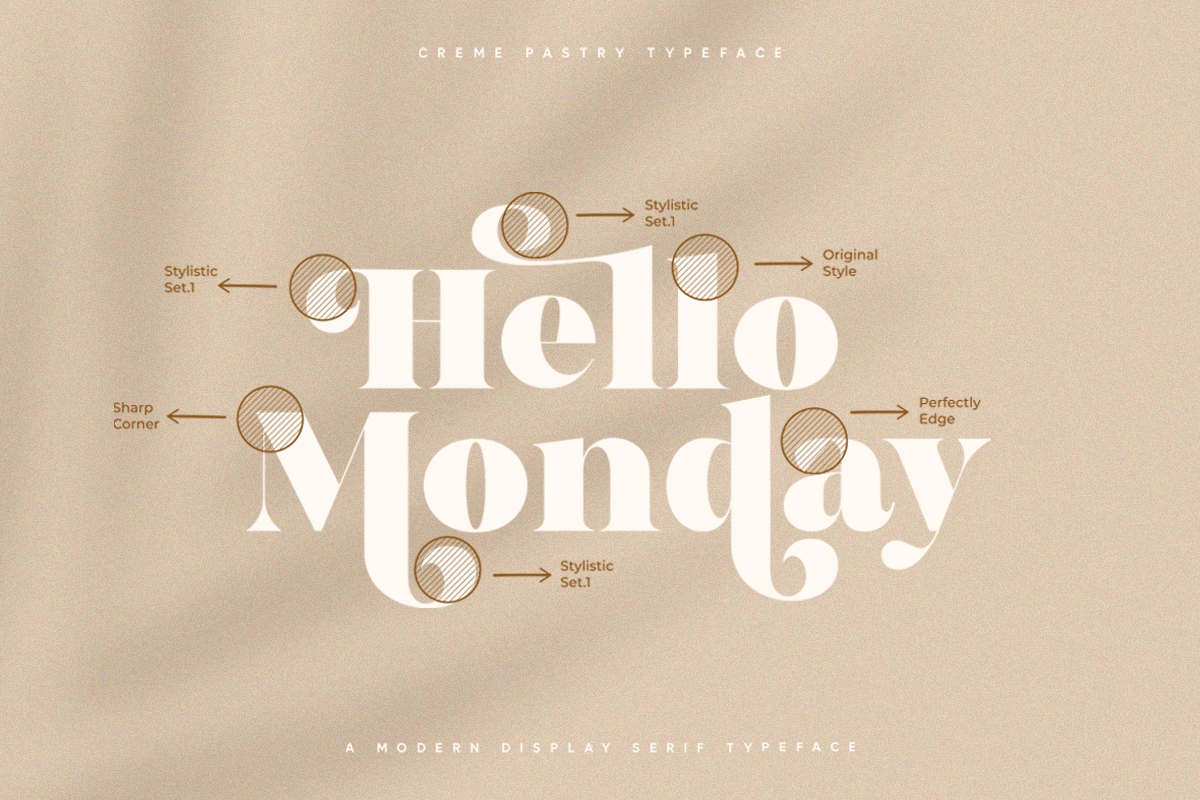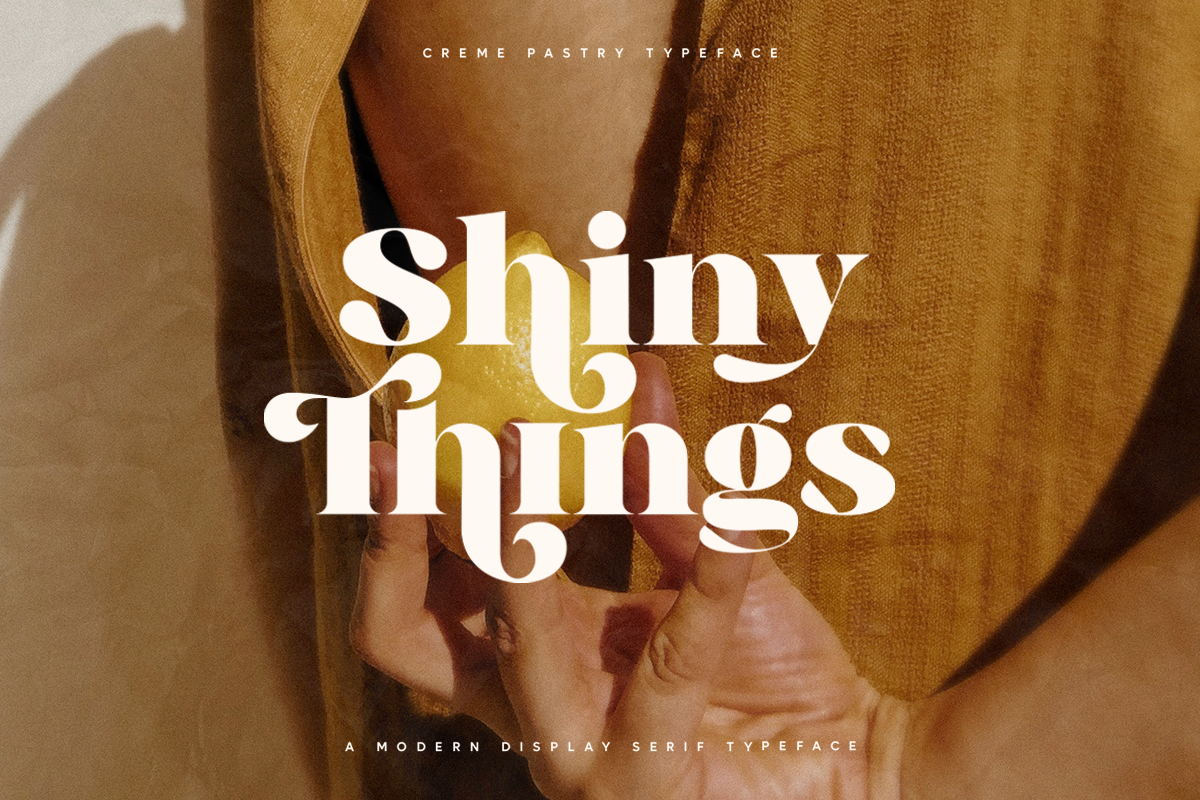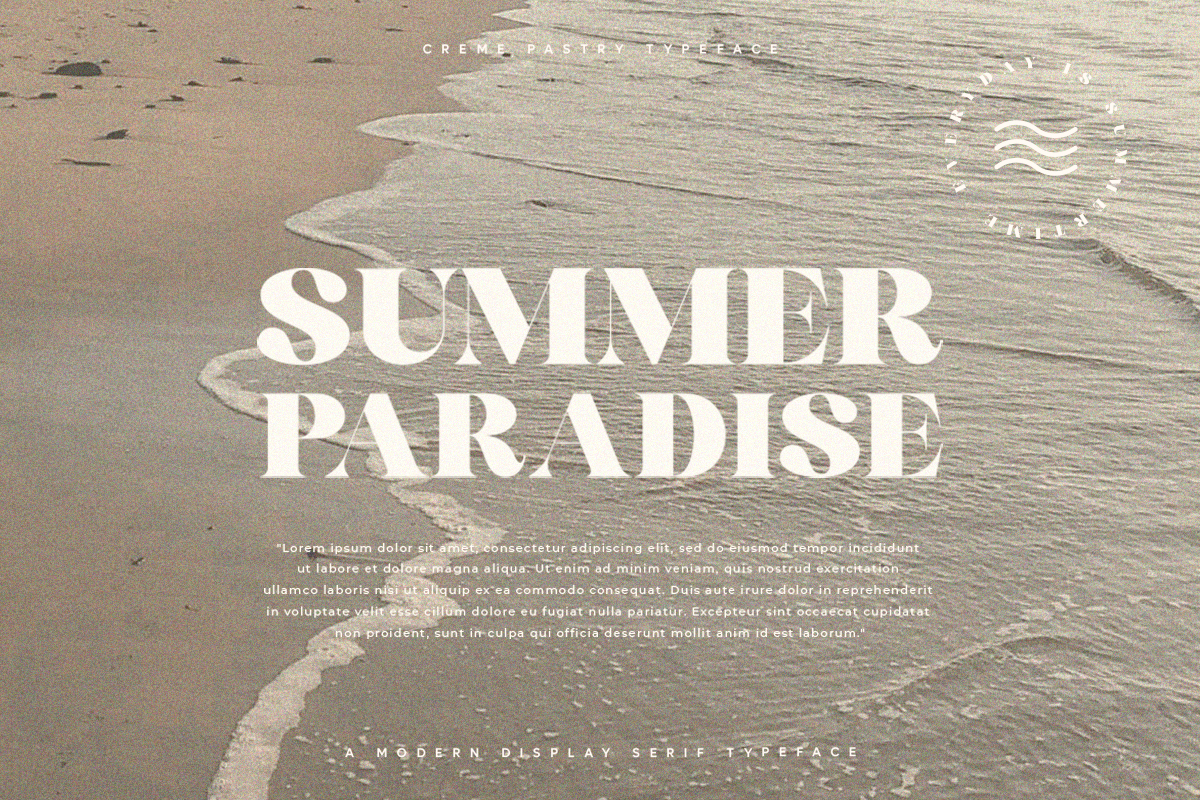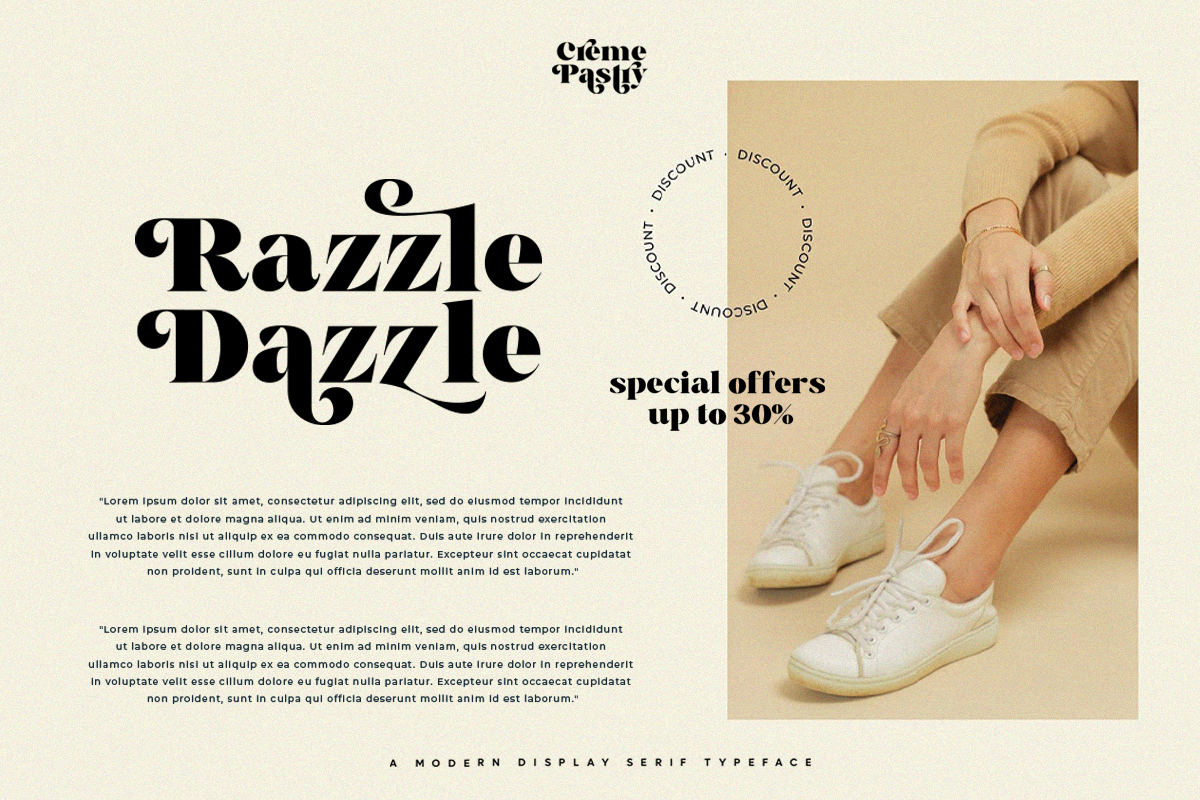
Creme Pastry Font
Creme Pastry Serif Font
This Font Is A Modern Display Character Inspired By Stylish and Cheek Style. Any version of Creme Pastry brings a touch of luxury and bespoke custom typography to modern logos, websites, social media quotes, wedding branding, and more.